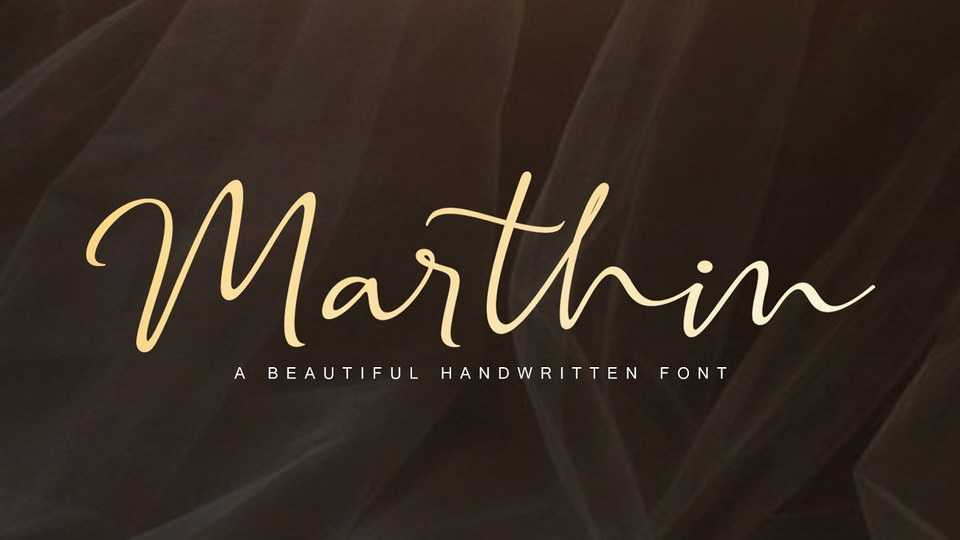
Download Marthin script, a modern signature font with elegant lines. It makes Martin font perfect for your personal branding and any awesome project, such as: logos, invitations, wedding designs, social media posts and more.